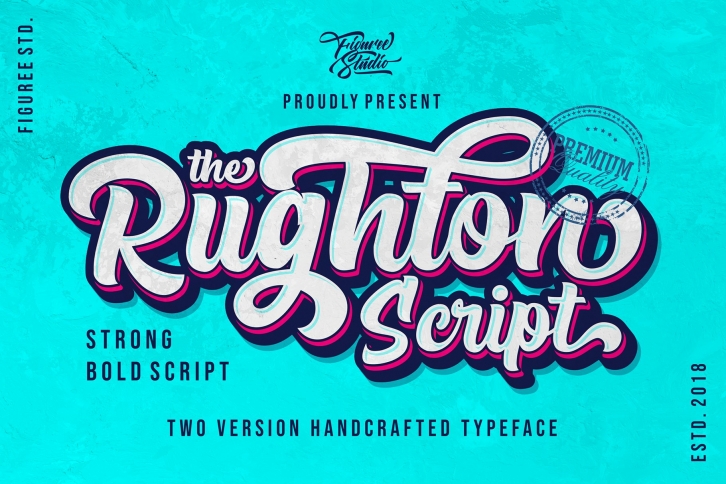
Hello, This is The Rughton Script!
The Rughton Script is a strong bold script that comes from hand scratches to get natural writing. With the main style of the hand-lettering script, it will be very interesting if it is added with a variety of Alternates and also Stylistic Sets that are very suitable. The Headlight is very suitable for use in various media such as; packaging, logos, labels, posters, shirt designs, wisdom quotes, bulletins, typography, and many other media, especially with retro or vintage look.
- Two Style small-caps
- Stylistic Alternates, Stylistic Sets (SS01-SS06) and Swash variant.